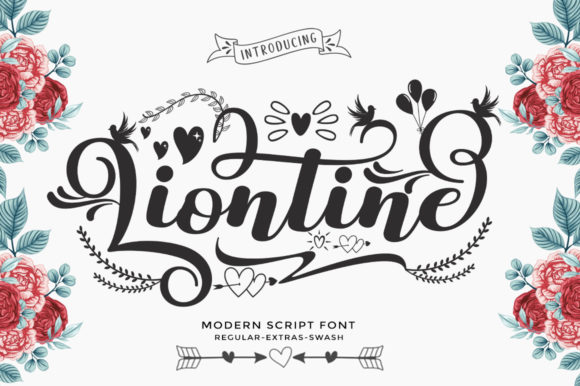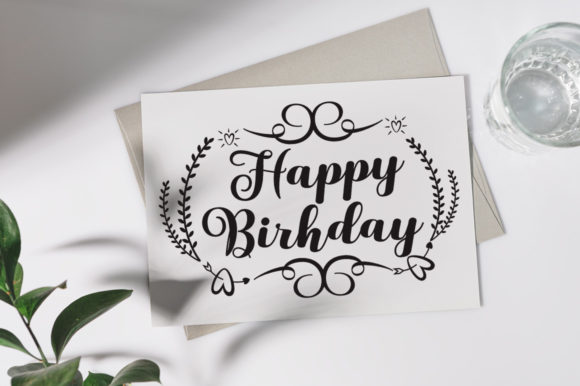
Liontine Script is a romantic and round lettered script font, with characters that dance along the baseline. It will add a luxury spark to any design project that you wish to develop. This font is PUA encoded, which means you can access all of the amazing glyphs and ligatures with ease.